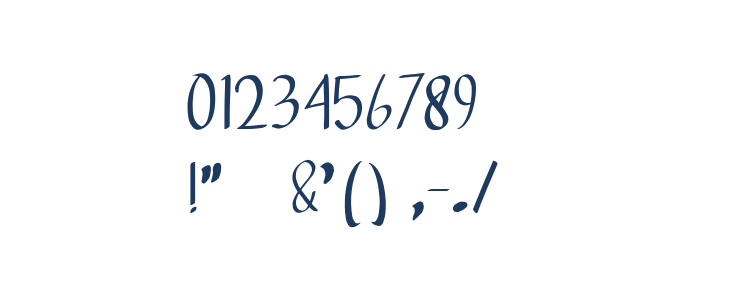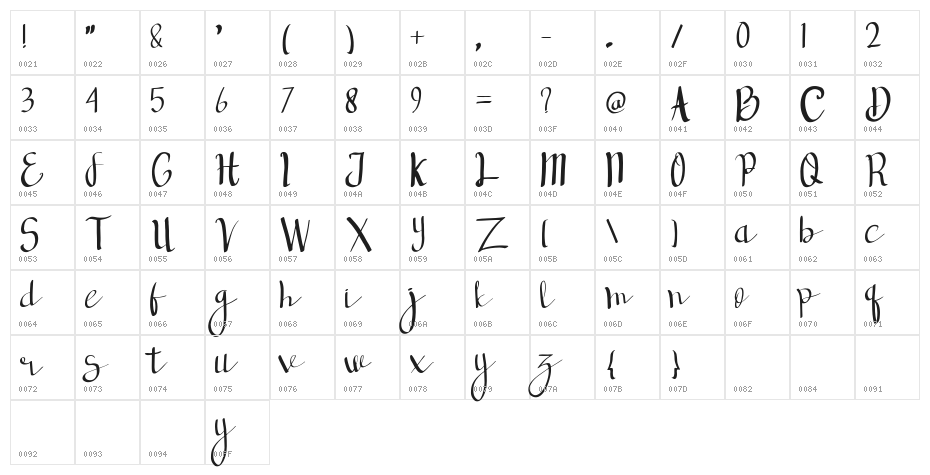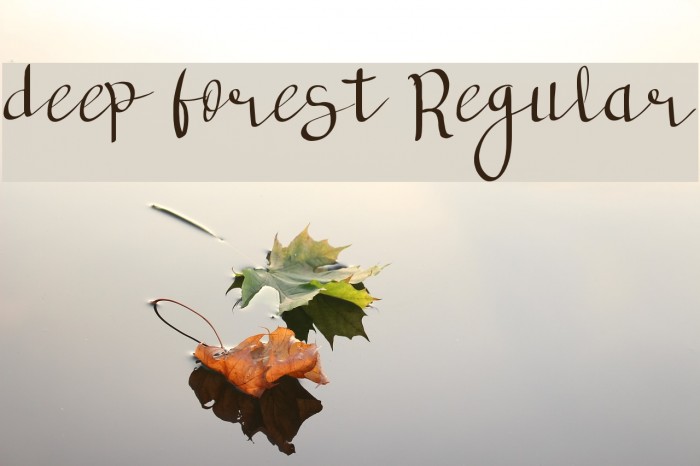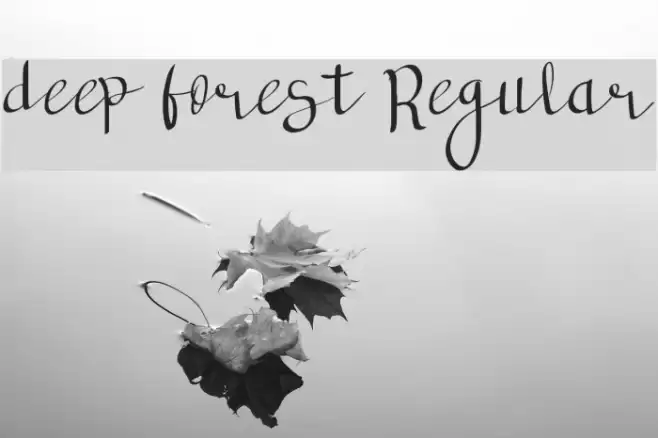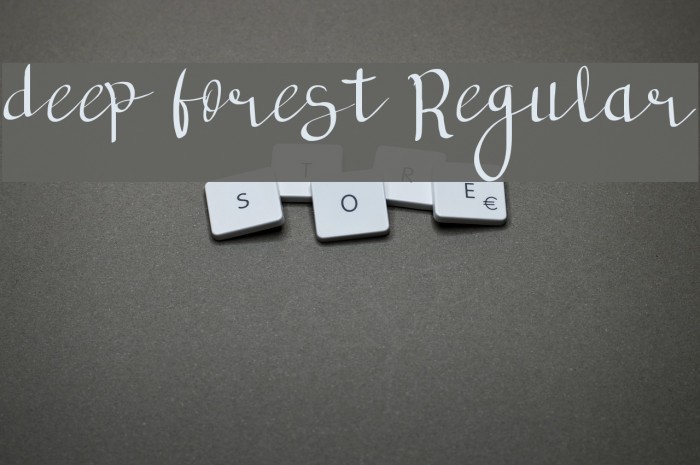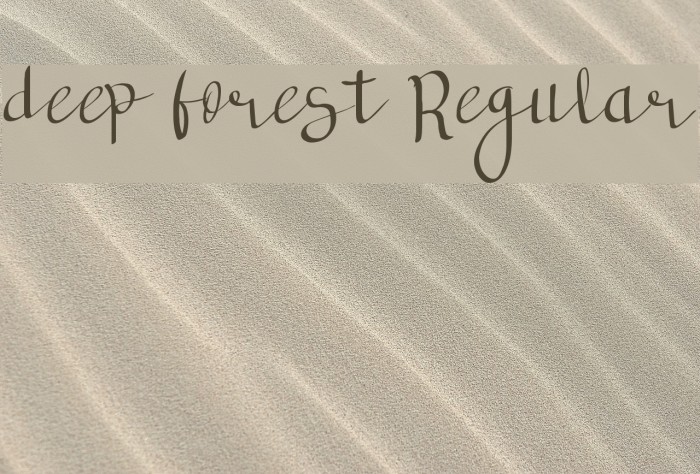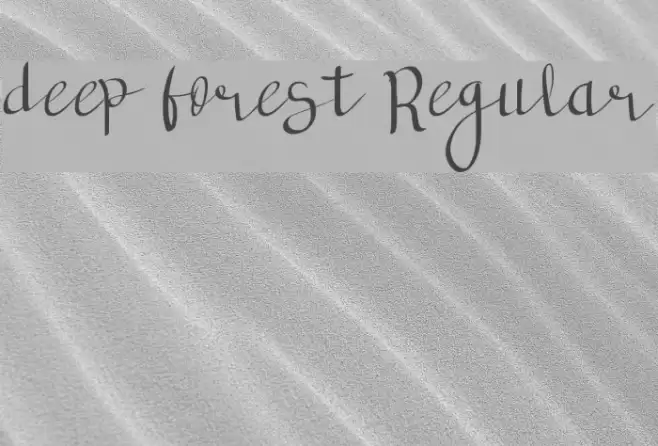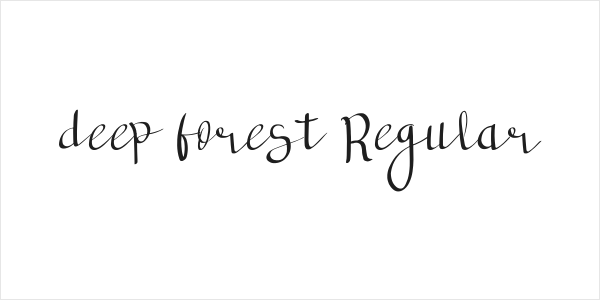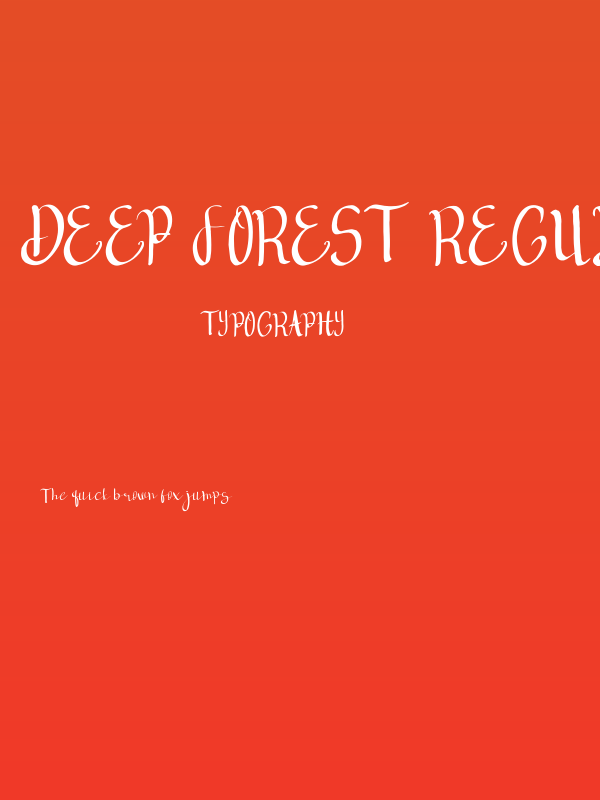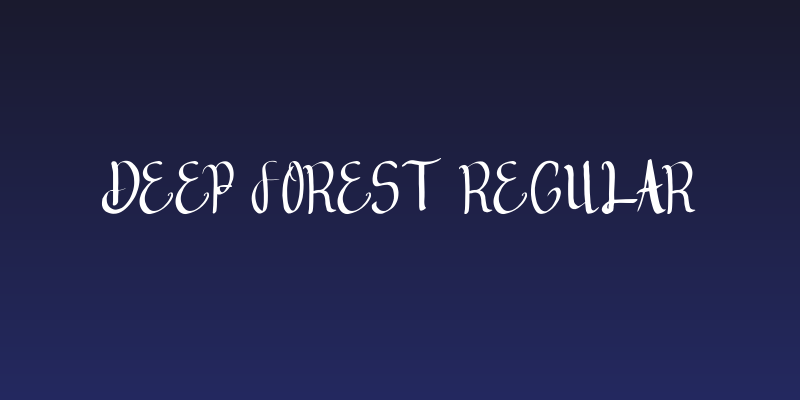
deep forest Regular Font
deep forest Regular Description
This font features an elegant and flowing script style, characterized by its smooth, cursive strokes and artistic flair. The uppercase letters exhibit a graceful, sweeping motion, while the lowercase letters maintain a consistent, fluid connection. The numerals are distinct and stylish, complementing the overall aesthetic. Special characters are integrated seamlessly, enhancing the font's versatility. The design exudes a sense of sophistication and creativity, making it suitable for a variety of artistic and formal applications.
| Overall Style | Elegant, Artistic |
| Proposed Projects | Ideal for wedding invitations, greeting cards, branding, and artistic projects requiring a touch of elegance. |